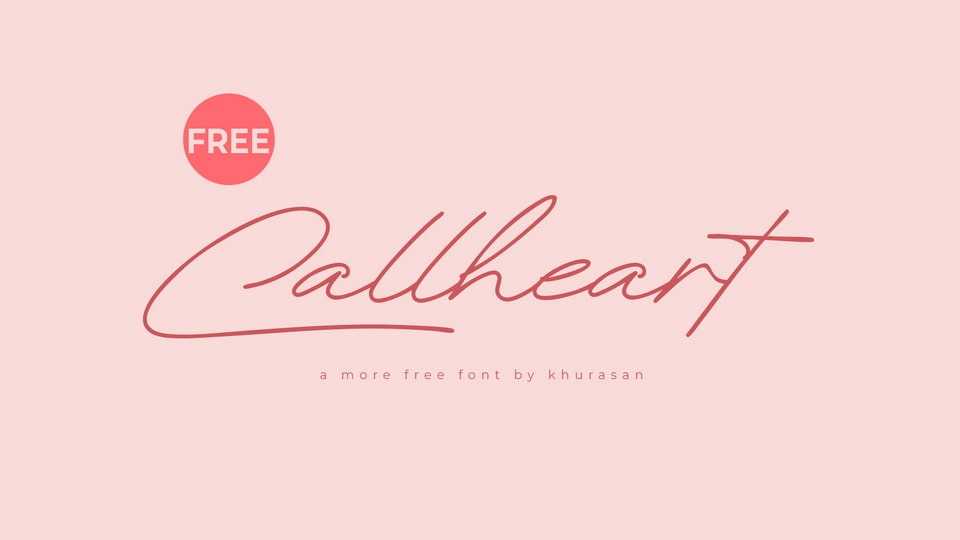
Download Callheart font, a captivating organic signature-style handwritten typeface that effortlessly captures the essence of authentic, handcrafted elegance. Every stroke in this font resonates with the fluidity and grace of a genuine signature, bringing a touch of nature’s artistry to your designs.